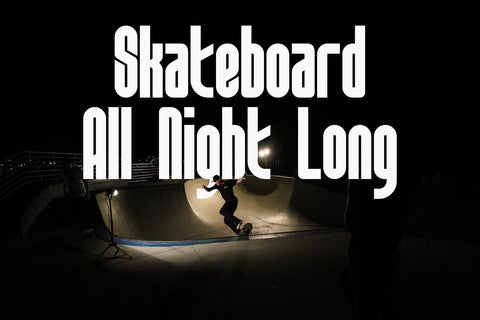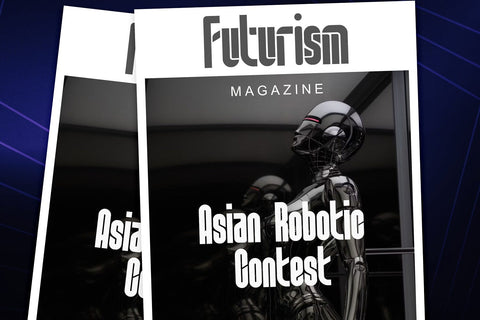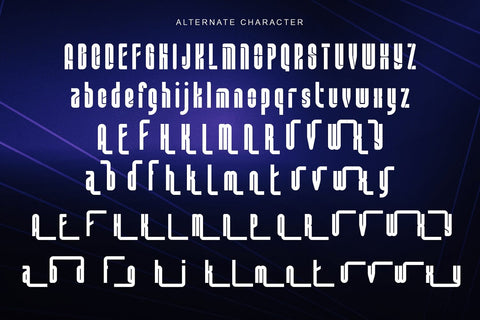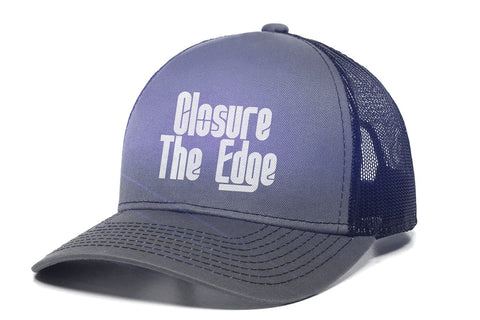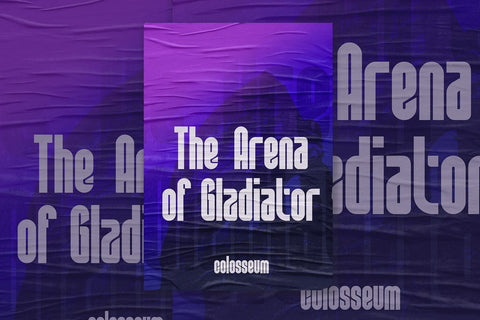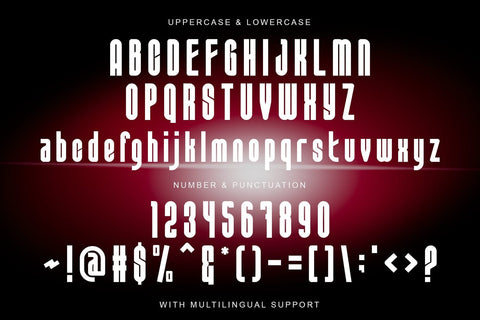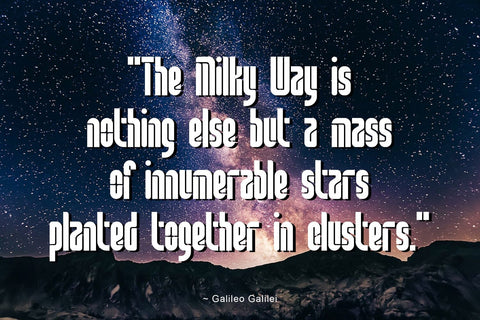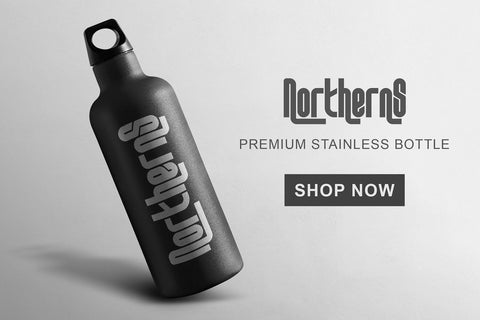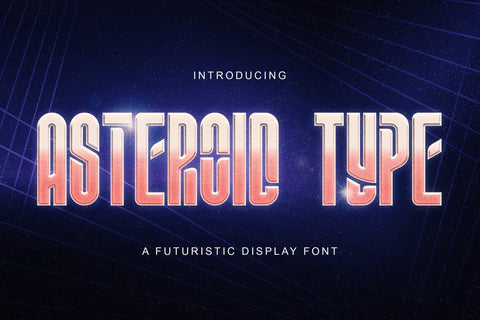
ASTEROID TYPE - Futuristic Display Font
Introducing ASTEROID TYPE – Futuristic Sans Font
ASTEROID TYPE is a modern futuristic sans font with a bold feel. It will add a contemporary update to any design project. On top of everything, it has a techno feel to it, making it ideal for titles, subtitles and UI.